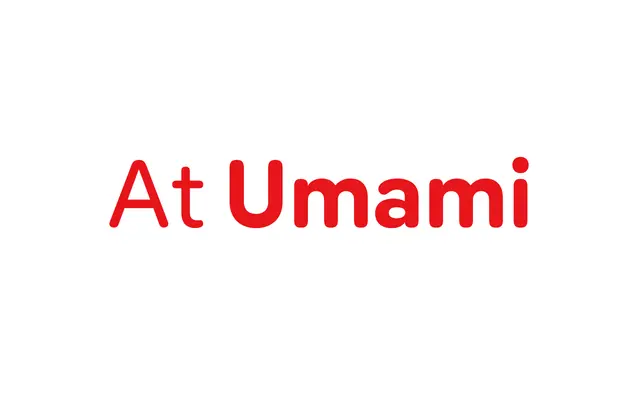
At Umami
Arillatype · Pedro Arilla · 2024
A rounded geometric sans by Pedro Arilla, conceived on a flight from Tokyo to Madrid and shaped by Japanese visual culture, spanning nine weights from Air to Super with matching italics.
Designed by Pedro Arilla with italics by Julián Moncada, the family runs 18 styles across nine weights from the very light Air through to Super, plus a Retina cut optimised for high-density screens. Eight stylistic sets cover alternate forms for both upper and lowercase characters, alongside ordinals, old-style figures, tabular figures and a slashed zero. The full family includes variable font files, and Latin Extended coverage reaches 279 languages.
A rounded sans-serif with geometric tendencies, its softened terminals and even stroke weights place it firmly in the geometric sans tradition, with subtle humanist inflections drawn from Japanese visual culture.